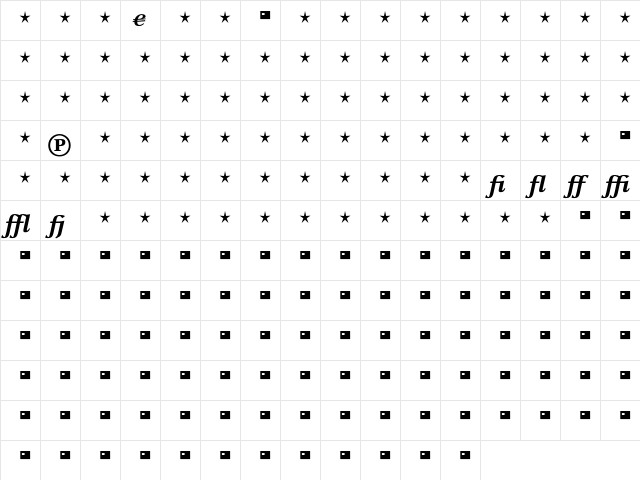
CelesteST BoldItalicExpert
Design Context for CelesteST Typeface
CelesteST is a composed and adaptable typeface that performs quietly and consistently across a wide range of design contexts. Its italic angle brings a sense of urgency and motion to the letterforms. Its bold stroke weight gives it real presence on the page.
Pro Tip: Use CelesteST for emphasis, pull quotes, and subheadings where its slanted energy can add rhythm to the layout.